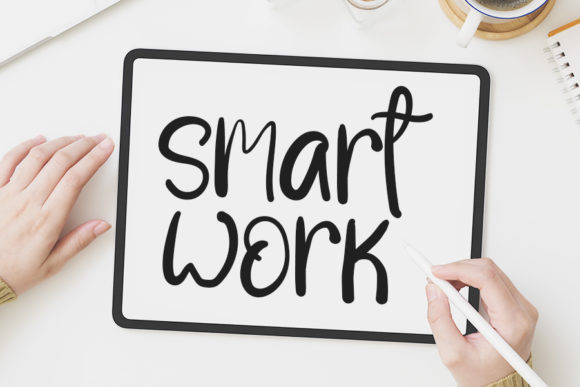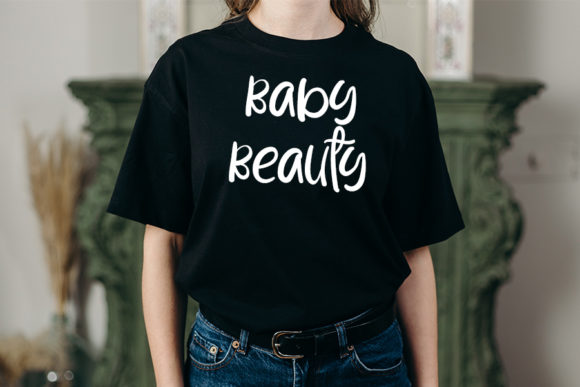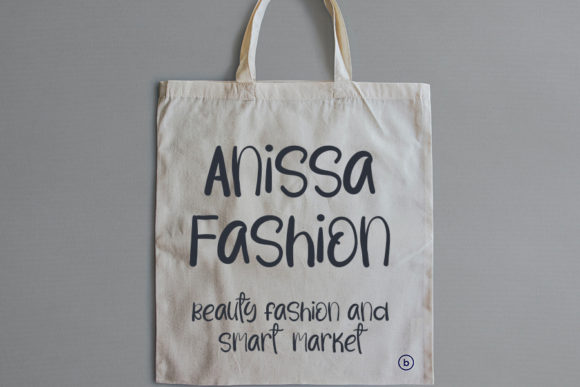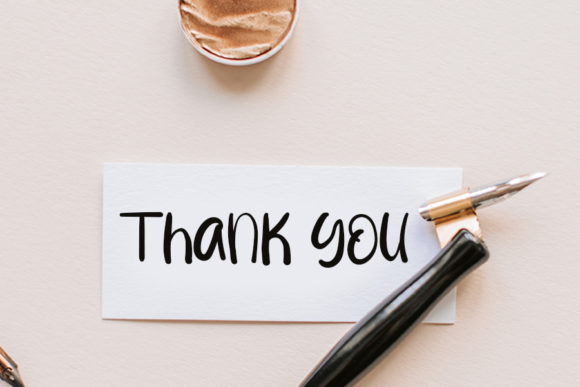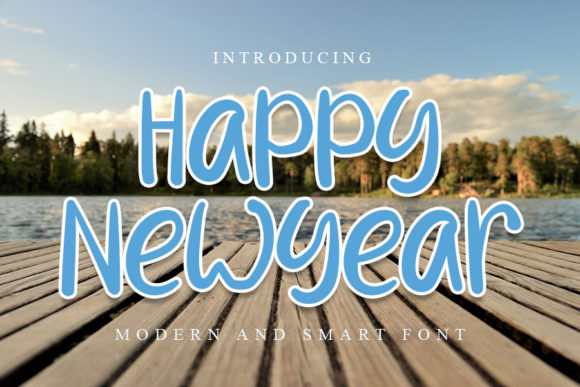
Happy New Year Font: A Modern and Simple Handwritten Style for Your Creative Projects
As the clock strikes midnight on New Year’s Eve, we bid adieu to the old and welcome the new with open arms. What better way to usher in the fresh start than with a beautiful, modern, and simple handwritten font? Introducing the Happy New Year Font, a versatile and stylish typeface perfect for a wide range of creative projects.
What is Happy New Year Font?
Happy New Year Font is a modern and simple handwritten font designed to add a touch of elegance and sophistication to your designs. Its clean lines, flowing curves, and effortless charm make it an ideal choice for various purposes, including logos, wedding invitations, headings, t-shirts, letterhead, signage, labels, news, posters, badges, and more.
Key Features of Happy New Year Font
- Modern and Simple Design: The Happy New Year Font boasts a contemporary and minimalist design that will make your projects stand out.
- Handwritten Style: The font’s handwritten style adds a personal touch, making it perfect for projects that require a human and approachable feel.
- Versatile: The font’s versatility knows no bounds, making it suitable for a wide range of applications, from digital designs to print materials.
- Easily Readable: The font’s clear and legible design ensures that your message is conveyed effectively, even at smaller font sizes.
Use Cases for Happy New Year Font
The Happy New Year Font is an excellent choice for various creative projects, including:
- Logos: Create a stunning logo for your business or brand with this modern and simple font.
- Wedding Invitations: Add a touch of romance and elegance to your wedding invitations with this beautiful handwritten font.
- Headings and Titles: Use the Happy New Year Font to create eye-catching headings and titles for your blog posts, articles, or social media graphics.
- T-Shirts and Merchandise: Design custom t-shirts, mugs, and other merchandise with this stylish font.
- Signage and Labels: Use the font for signage, labels, and other print materials that require a clear and readable design.
- Posters and Badges: Create stunning posters and badges with this modern and simple font.
Why Choose Happy New Year Font?
With so many fonts available, why choose the Happy New Year Font? Here are a few compelling reasons:
- Unique and Distinctive: The font’s modern and simple design sets it apart from more traditional fonts.
- High-Quality: The font is designed to deliver high-quality results, whether you’re working on digital or print projects.
- Support for Multiple Languages: The font supports multiple languages, making it a great choice for global brands and businesses.